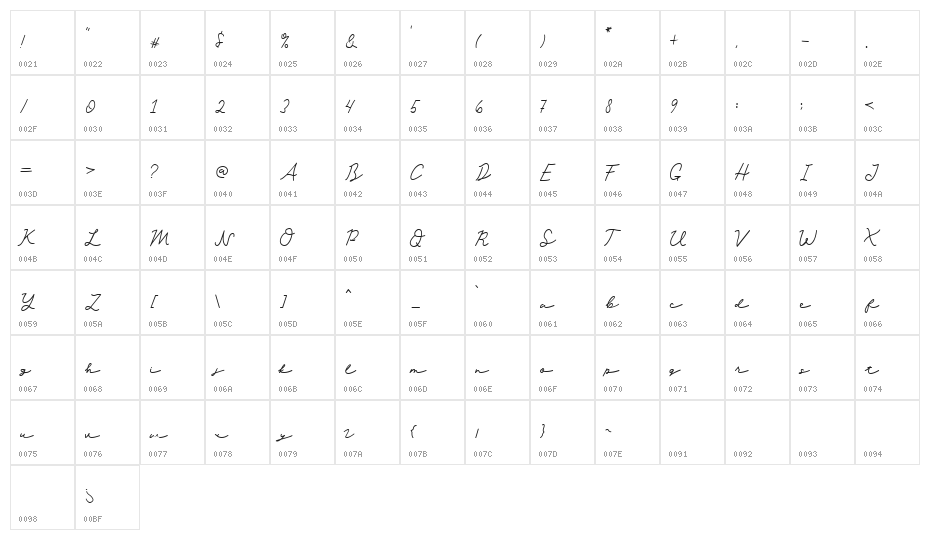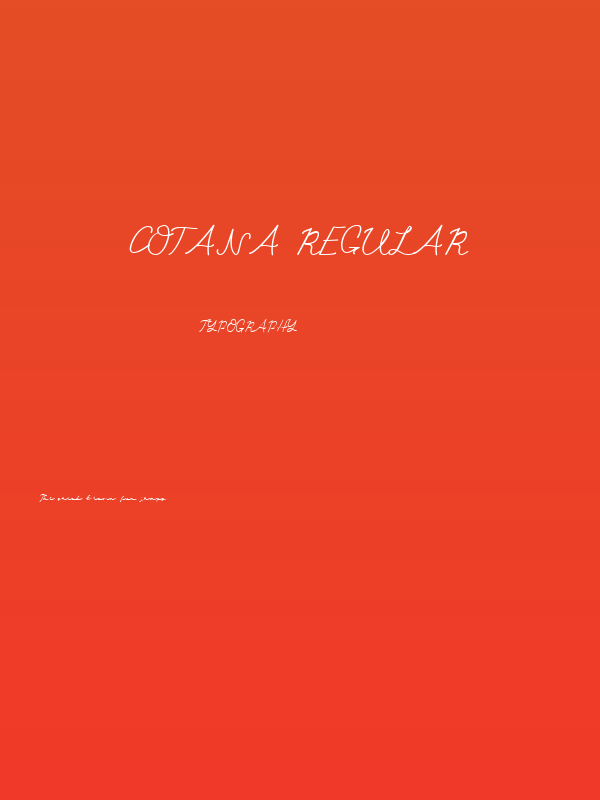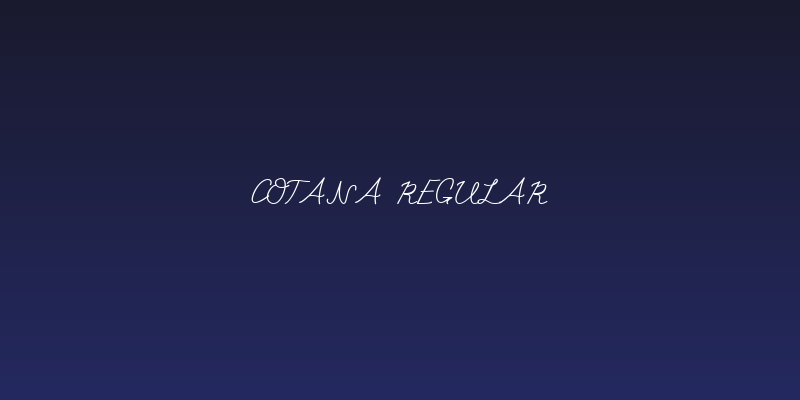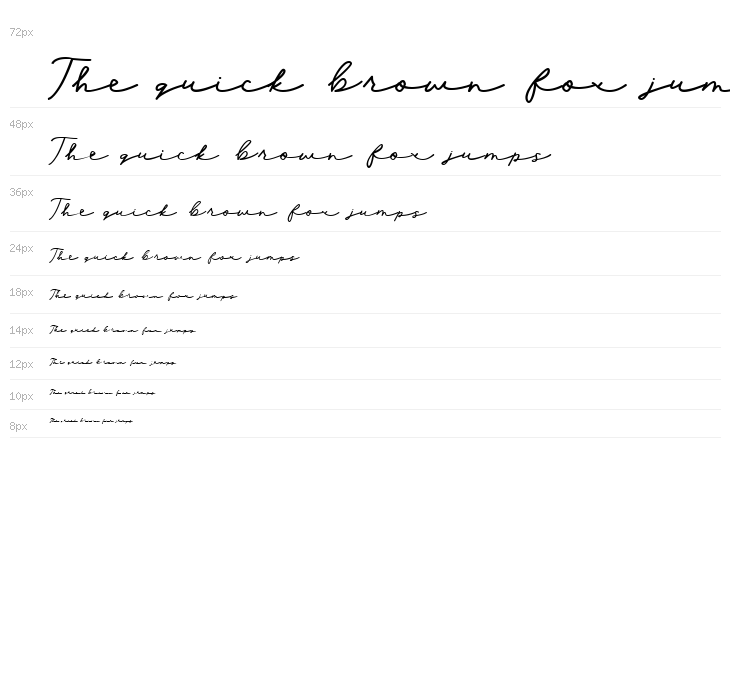
Cotana Regular Font
Cotana Regular Description
This font features a flowing, cursive style that mimics elegant handwriting. The characters are connected, creating a seamless and fluid appearance. The uppercase letters are slightly more elaborate, with graceful loops and curves, while the lowercase letters maintain a consistent, smooth flow. The numerals and special characters are designed to complement the script style, maintaining the same fluidity and elegance. This font exudes a sense of sophistication and personal touch, making it ideal for projects that require a handwritten aesthetic.
| Overall Style | Elegant, Handwritten |
| Proposed Projects | Ideal for wedding invitations, greeting cards, personal branding, and any project that benefits from a personal, elegant touch. |